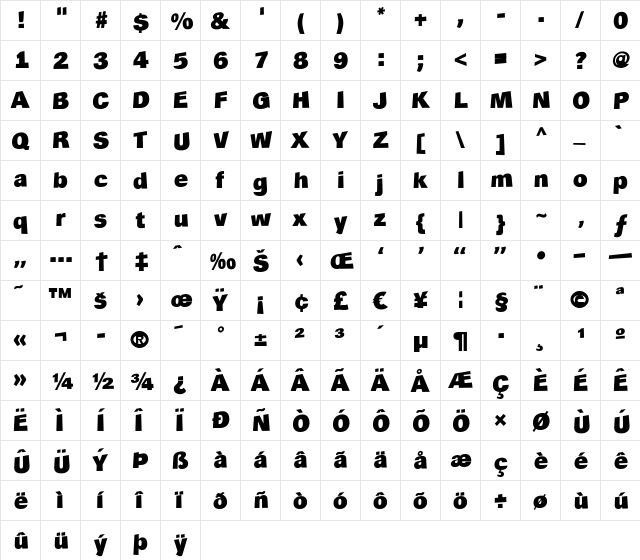
a_ReportSans3DRtt Regular
| Designer | W.Chufarofsky & M.Slutsker |
Design Context for a_ReportSans3DRtt Typeface
a_ReportSans3DRtt takes a measured approach to typography — its balanced proportions and neutral character make it a reliable workhorse for both digital and print work.